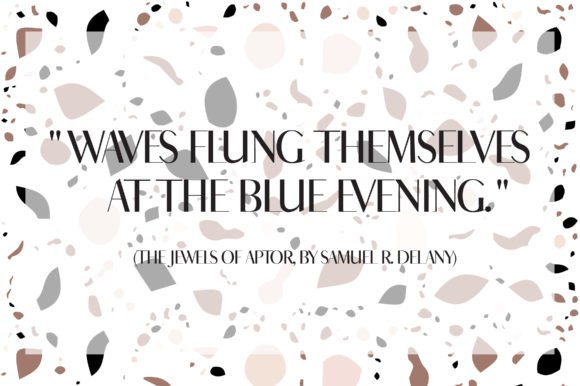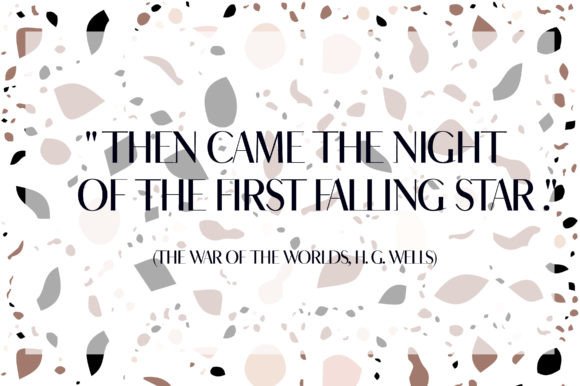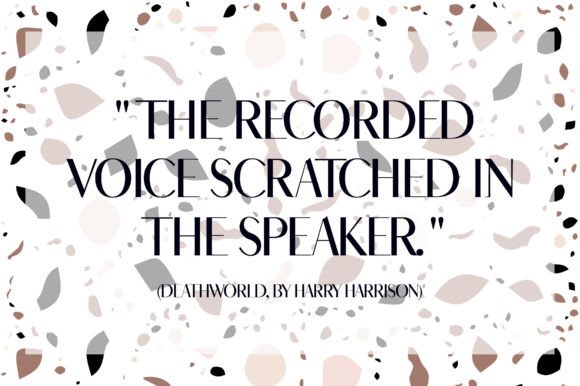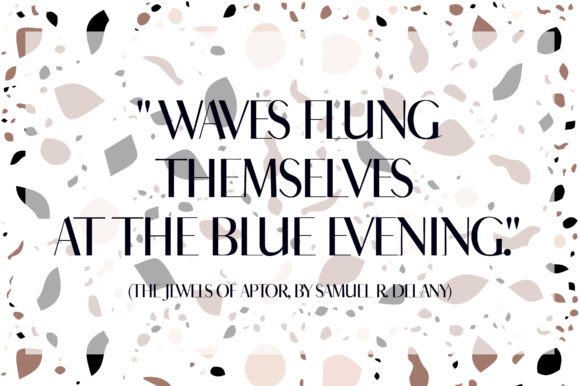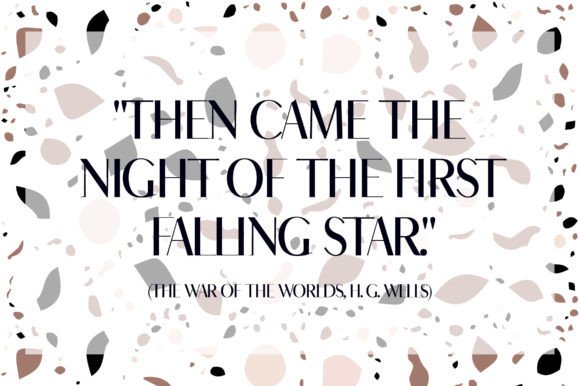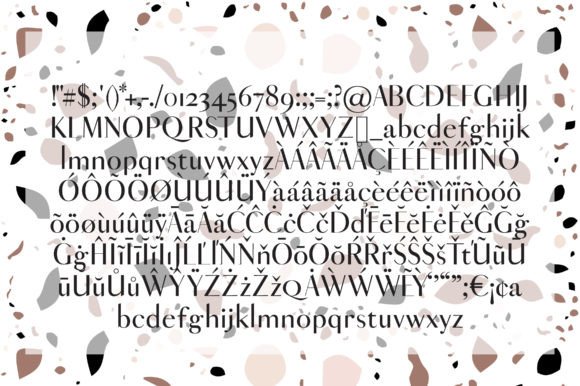
Introducing Dignified: The Ultimate Elegant Font
Dignified is a masterclass in minimalist design, boasting clean lines, simple shapes, and a sophisticated charm. This font is perfect for designers, crafters, and creative hobbyists seeking to add a touch of class to their projects. Whether you’re working on branding materials, website design, social media graphics, or print media, Dignified is an excellent choice.
Here’s what I love about Dignified:
- ✨ Elegant and sophisticated: Dignified exudes refinement and poise, making it perfect for high-end brands or luxury projects.
- ✅ Exceptional legibility: The font’s clean lines and simple shapes ensure that it remains easy to read, even at small sizes.
- 🌟 Versatile: Dignified works beautifully in both print and digital media, making it a great addition to any design toolkit.
While Dignified is an outstanding font, it’s not without its quirks:
- 🤔 Limited character set: Dignified’s character set is somewhat limited, which may make it less suitable for projects requiring a wide range of special characters.
- ⚠️ Not ideal for body text: While Dignified is legible, its elegant and sophisticated nature makes it better suited for headings and titles rather than body text.
- Experiment with Dignified’s OpenType features, such as stylistic alternates, to add visual interest to your design.
The Designer Inspiration Behind Dignified
Dignified was designed with the goal of creating a font that embodies elegance, sophistication, and refinement. The designer’s inspiration came from classic typography, combined with a modern twist. The result is a font that feels both timeless and contemporary.
| What type of projects is Dignified best suited for? | Dignified is perfect for branding and marketing materials, website design, social media graphics, and print media. |
| Is Dignified suitable for body text? | While Dignified is legible, it’s better suited for headings and titles rather than body text. |
| Does Dignified support OpenType features? | Yes, Dignified supports OpenType features, including stylistic alternates and glyphs. |